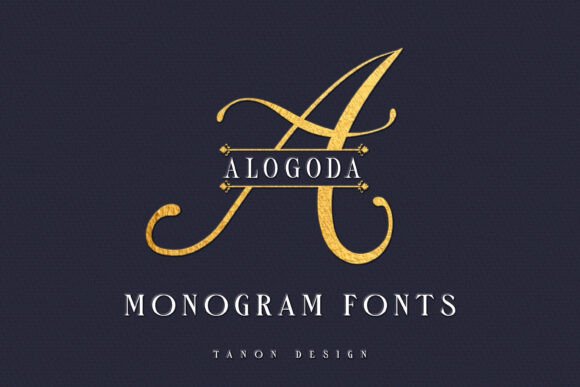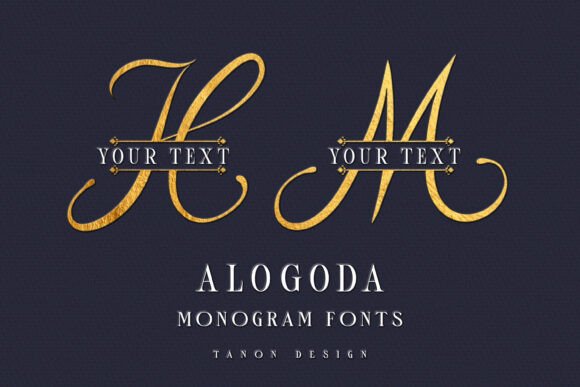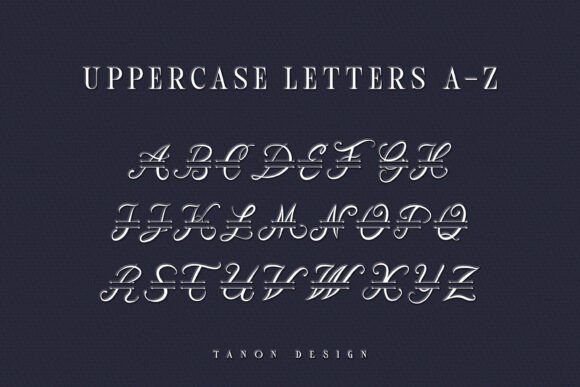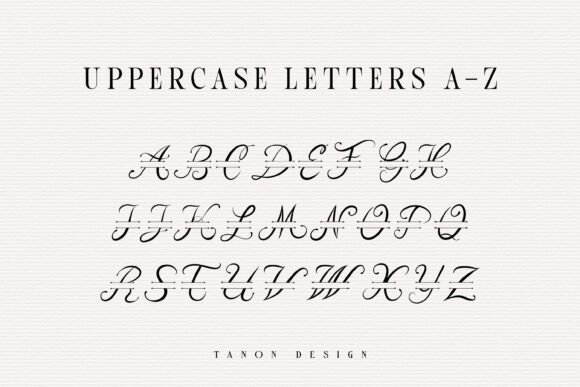
Alogoda Monogram Font
About the Alogoda Monogram Font
Presenting Alogoda Monogram Font, a unique and stylish typeface that will make your work stand out. Alogoda Monogram font is a charming font for logo and branding, perfect for giving your designs a cozy and luxury. It will look fantastic on all your project designs including t-shirt designs, mug designs, digital designs, crafts, cards, and any projects!
Alogoda Monogram Font Usage Examples
Alogoda Monogram Font Example